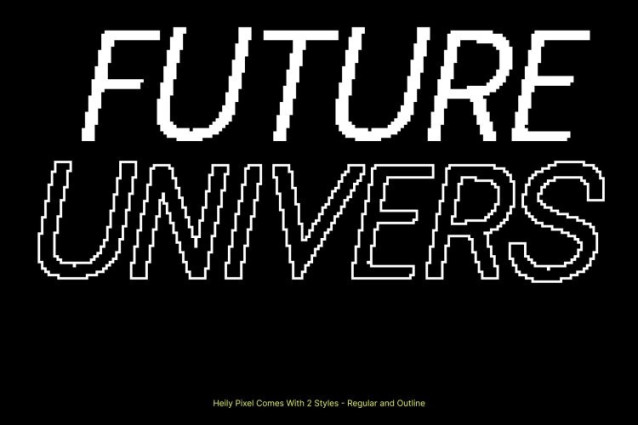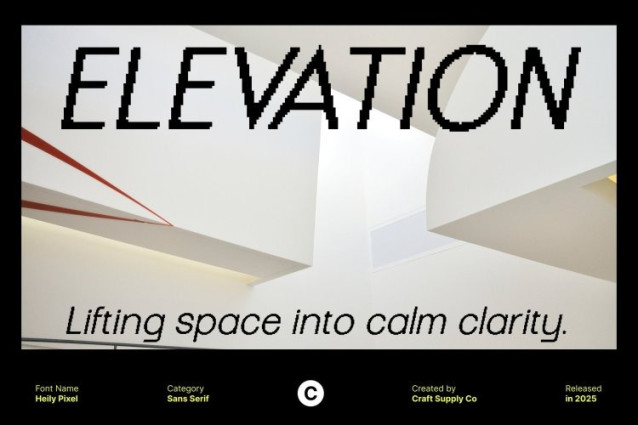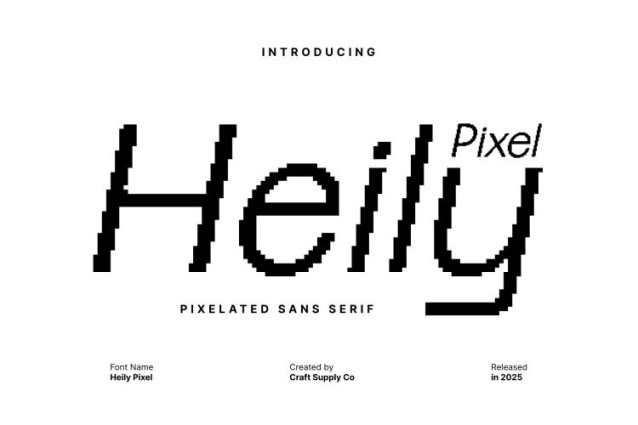
Heily Pixel Font
Heily Pixel Font This modern sans serif font features a grotesque style that emphasizes simplicity, clarity, and functionality. Its minimalist forms create a clean, professional look, making it ideal for contemporary designs that prioritize readability and sleek aesthetics. The balanced proportions and sharp lines ensure a polished, sophisticated presence in any layout.
Pixelated Style for Digital and Futuristic Impact
The pixelated detailing transforms the font into a digital-inspired typeface, evoking a modern, tech-savvy vibe. This design choice gives the font a futuristic edge, perfectly suited for interfaces, technology branding, digital media, and projects that aim to feel innovative and forward-thinking.
Perfect for Modern, Futuristic, and Digital Designs
From websites and UI design to posters, branding, and editorial projects, this font adapts seamlessly to modern visual applications. Its pixelated texture adds depth and uniqueness, making it ideal for designers who want a minimalist base with a subtle digital twist.
Sleek, Contemporary, and Digitally Distinct
Combining the clarity of grotesque sans serif with pixel-inspired accents, this font offers a modern, futuristic aesthetic. It is the perfect choice for creatives seeking a clean, professional, and technologically inspired typeface that stands out in both print and digital media.